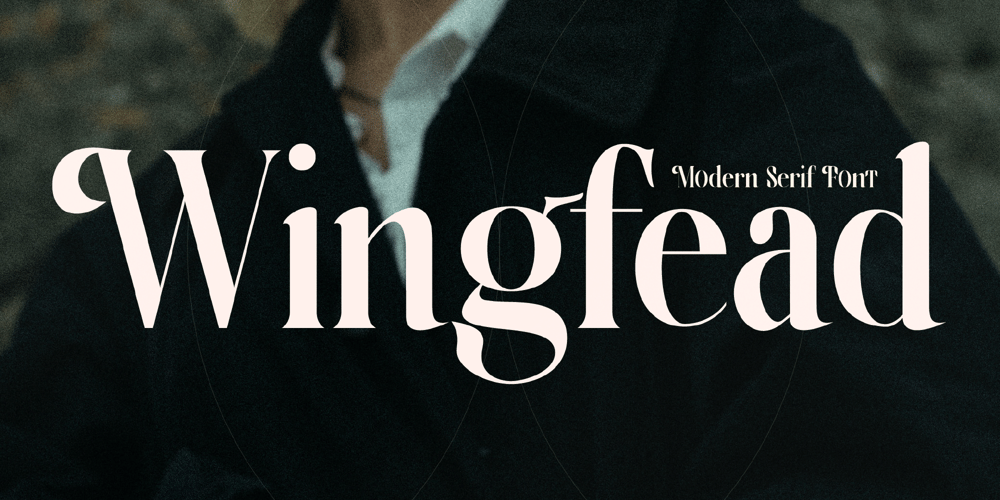
Wingfead
Wingfead font
Wingfead Font Family was designed by Heru Utama Putra and published by Letterena Studios. Wingfead contains 2 styles and family package options. Wingfead is a bold and thick lettered serif font. It is perfect for any branding project such as logos, t-shirt printing, creative products, and more. Wingfead is PUA encoded which means you can access all glyphs and swashes with ease!